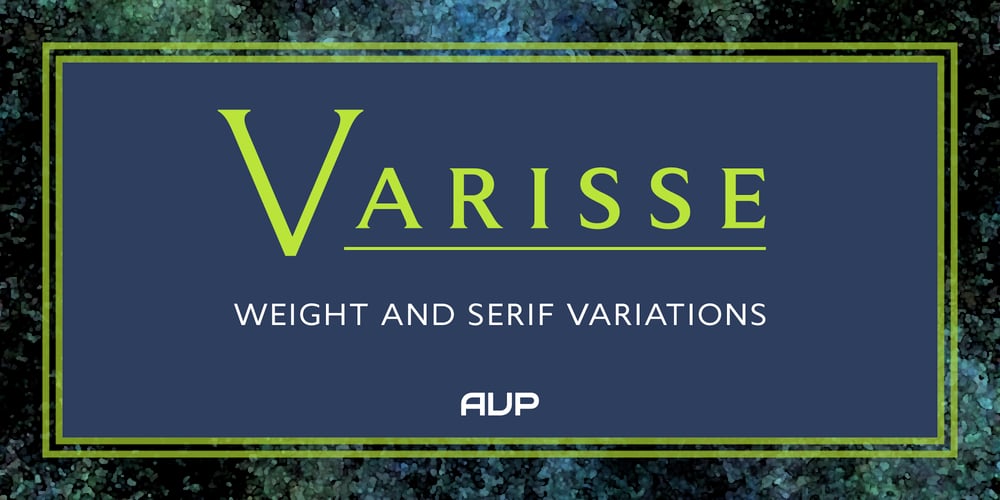
Varisse Font Family was designed by Nicholas Garner and published by AVP. Varisse contains 60 styles and family package options. Varisse spans over two centuries of type design and draws its inspiration from well-loved classics that are as fresh today as they were when they were created. The range stretches from a quintessential 18th century transitional serif to an uncompromising 20th century sans. Think Baskerville, think Gill. The idea was to create a family that shared similar forms and the same vertical metrics, allowing them to be mixed to provide impact and readability as required.With a generous x-height and a host of options, the Varisse family is ideally suited to branding, packaging, magazines and editorial. It also provides a wealth of opportunity in website presentation.The fonts are divided into five subfamilies by degree of ‘serification’. Varisse Sans Varisse Soft Sans Varisse (normal) Varisse Soft Serif Varisse Serif Each subfamily contains six weights and accompanying italics.